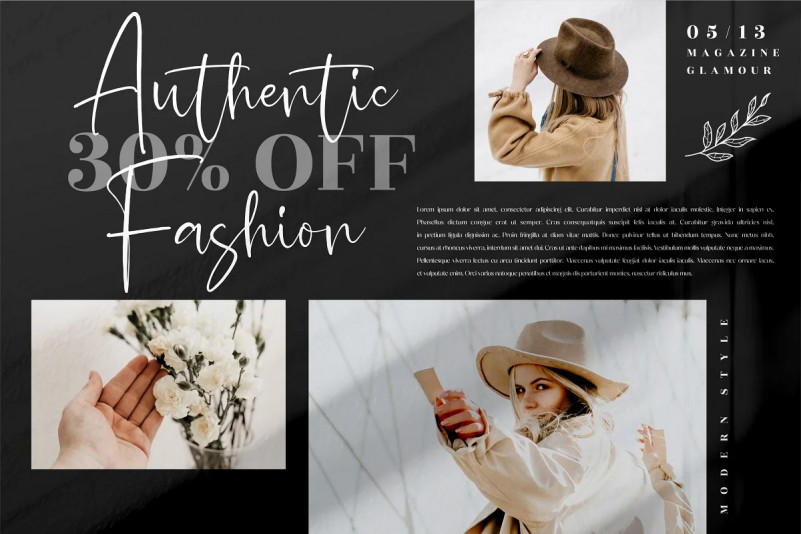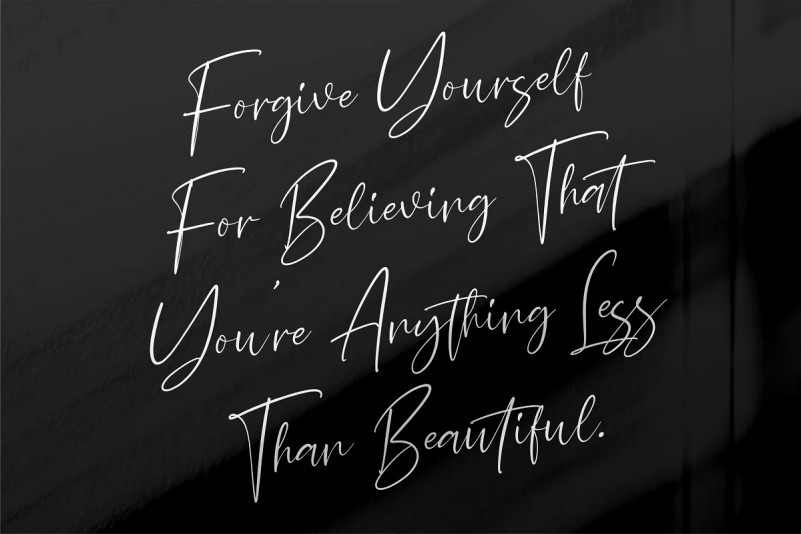
Ballete Handwritin Font
Ballete Handwritin Font is a font created with brush pen strokes that carry romantic and elegant themes. Ballete – will be perfect for flyer, brochures, posters, t-shirts, book covers, packaging, invitations, business cards, quote and all designs that require soft, romantic, modern and elegant elements